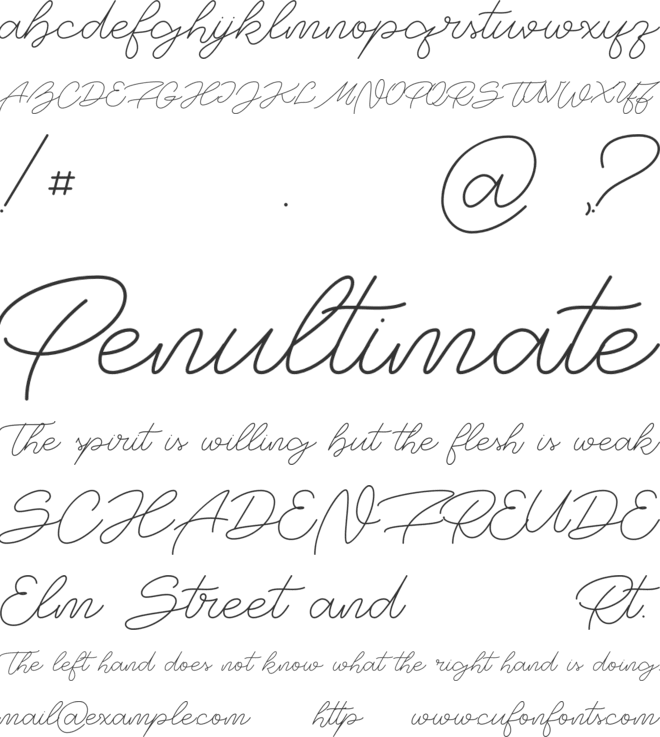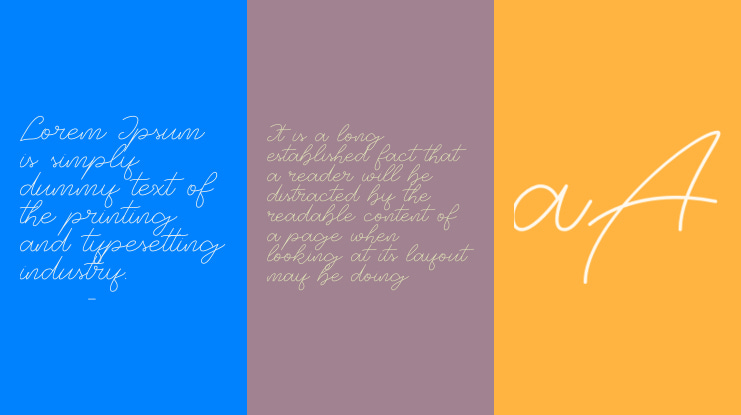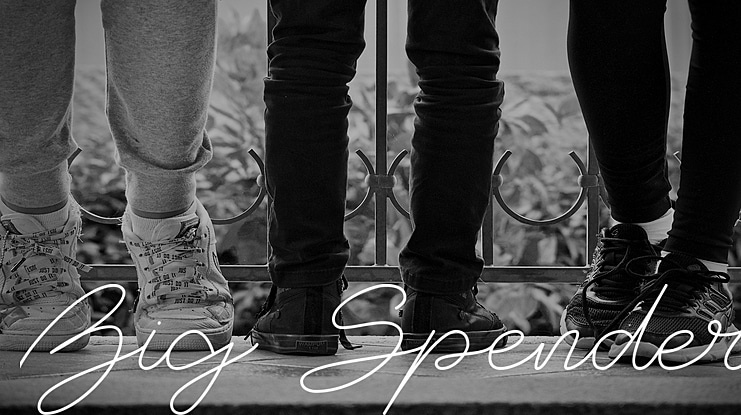
Big Spender Font
Big Spender is thought more as a signature font, something to resemble the handwritten of a person. Big Spender was thought and named in the idea of signing checks, papers and similar.